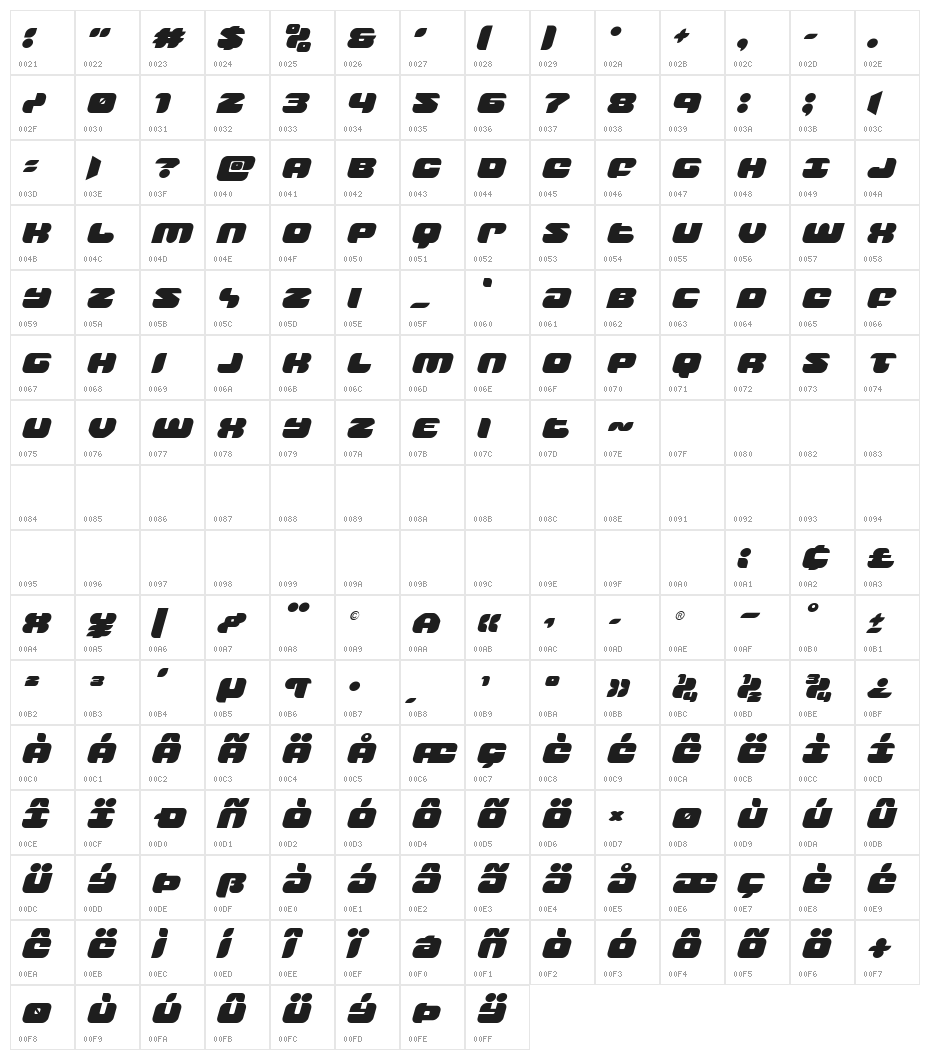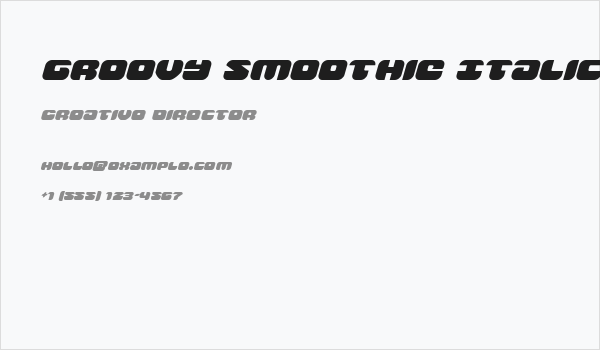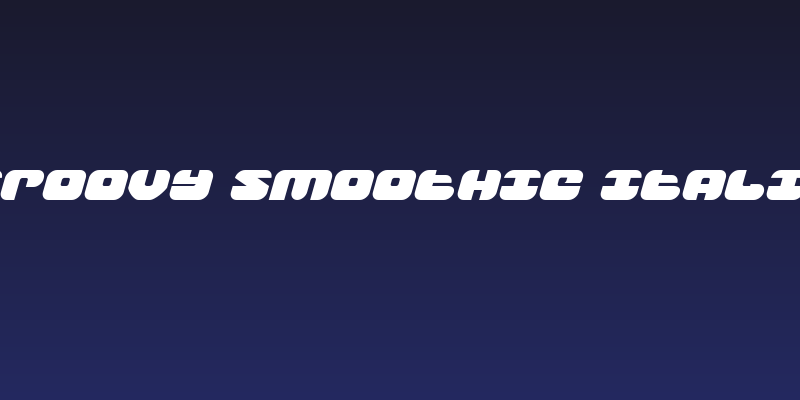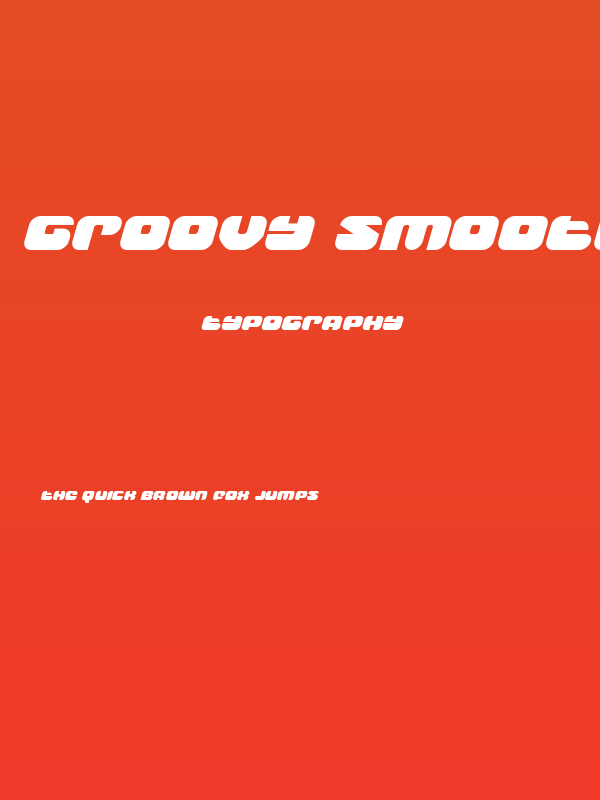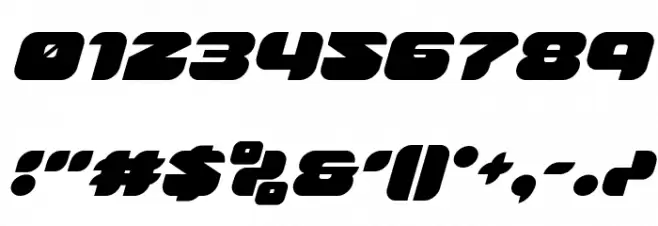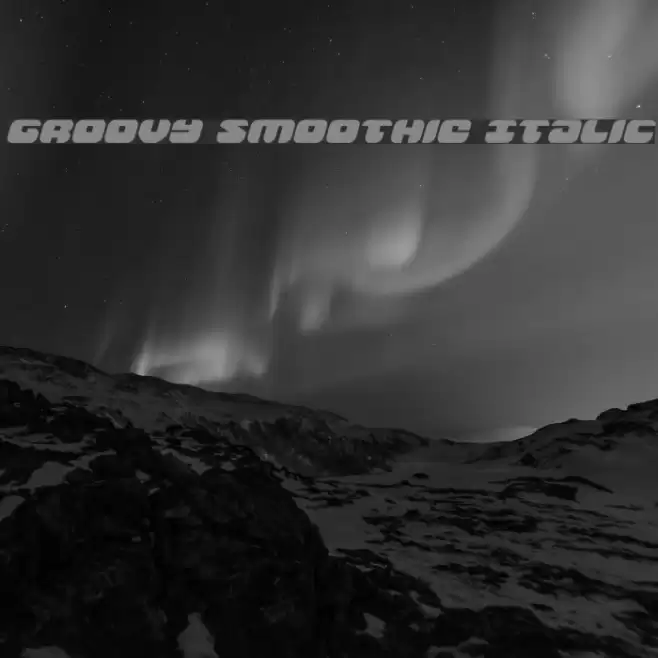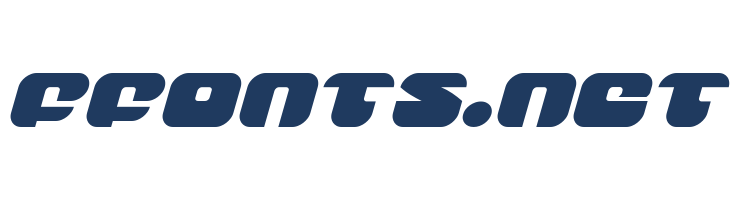
Groovy Smoothie Italic Font
This font features a bold, rounded style with a smooth, flowing appearance. The characters are designed with a consistent thickness, giving it a cohesive and modern look. The rounded edges and slightly italicized form add a playful and dynamic feel, making it suitable for creative and informal designs. The font maintains a uniform weight throughout, ensuring readability while adding a touch of uniqueness. Its bold presence makes it ideal for attention-grabbing headlines and titles. The spacing between characters is tight, enhancing its compact and impactful style.
| Proposed Projects | Ideal for branding, posters, event invitations, and any project requiring a bold and playful typeface. |